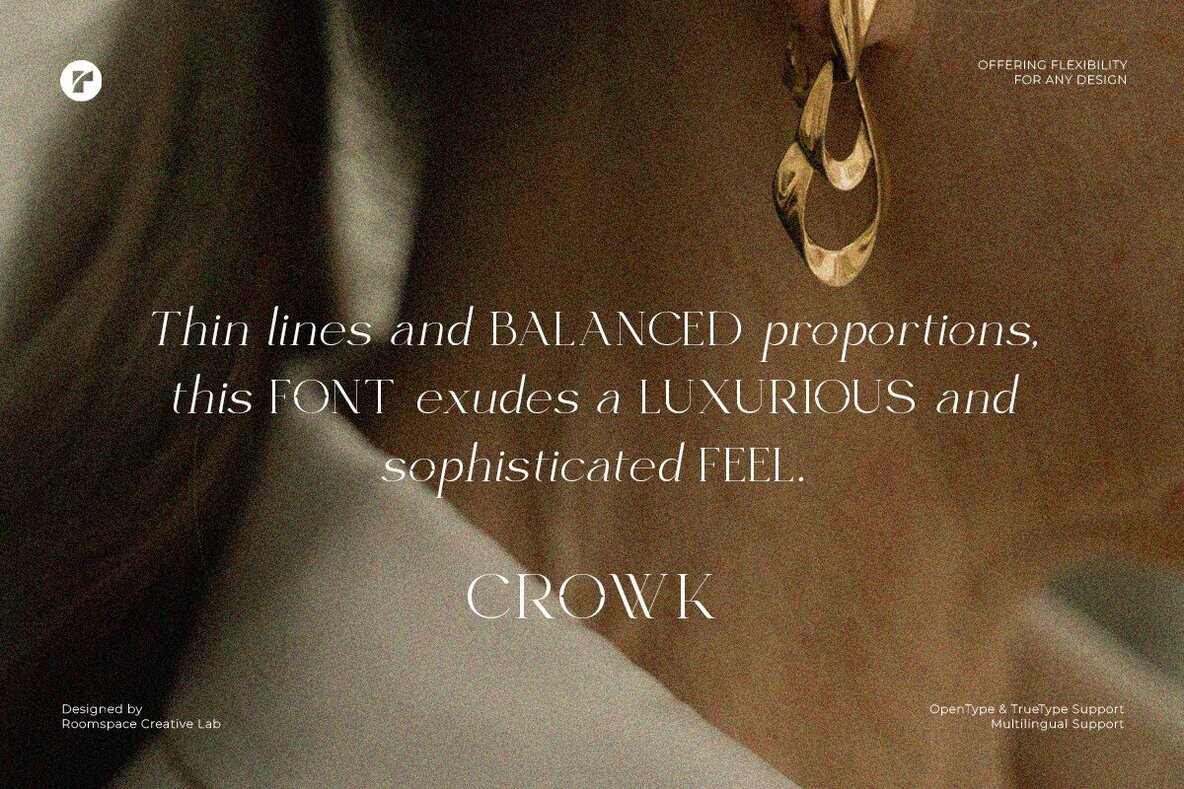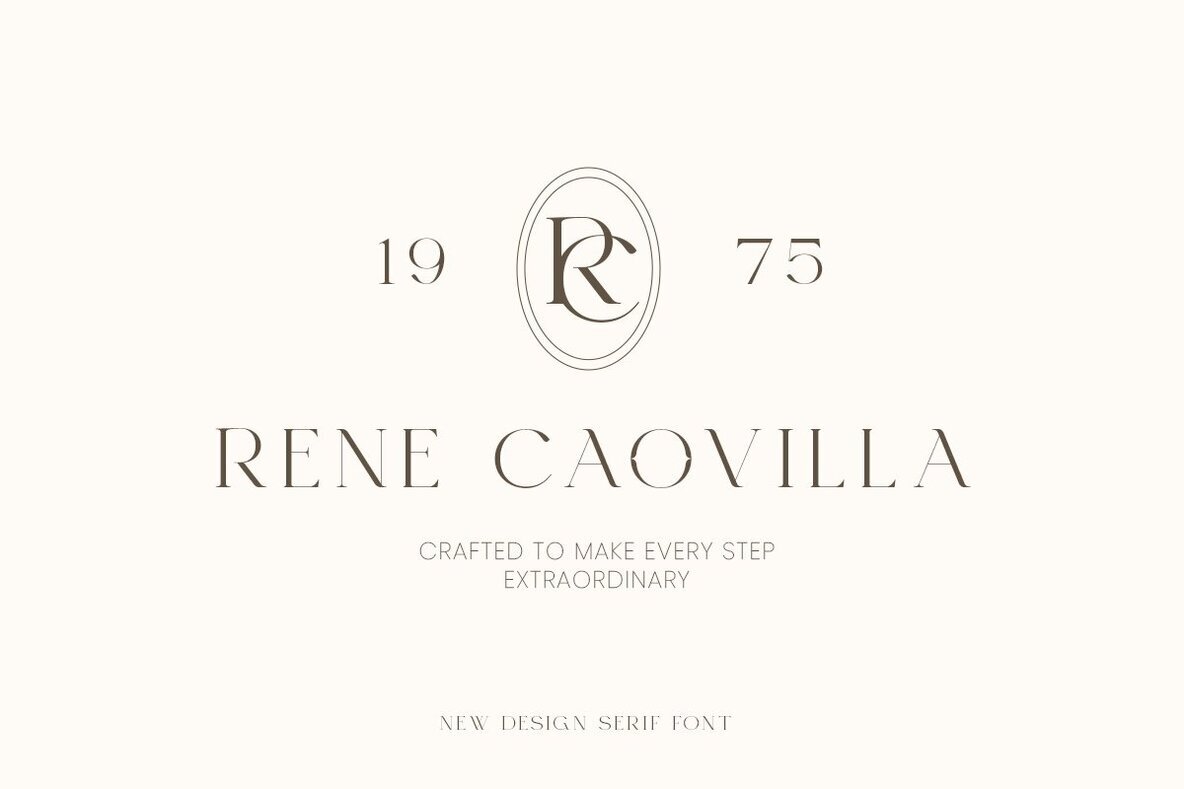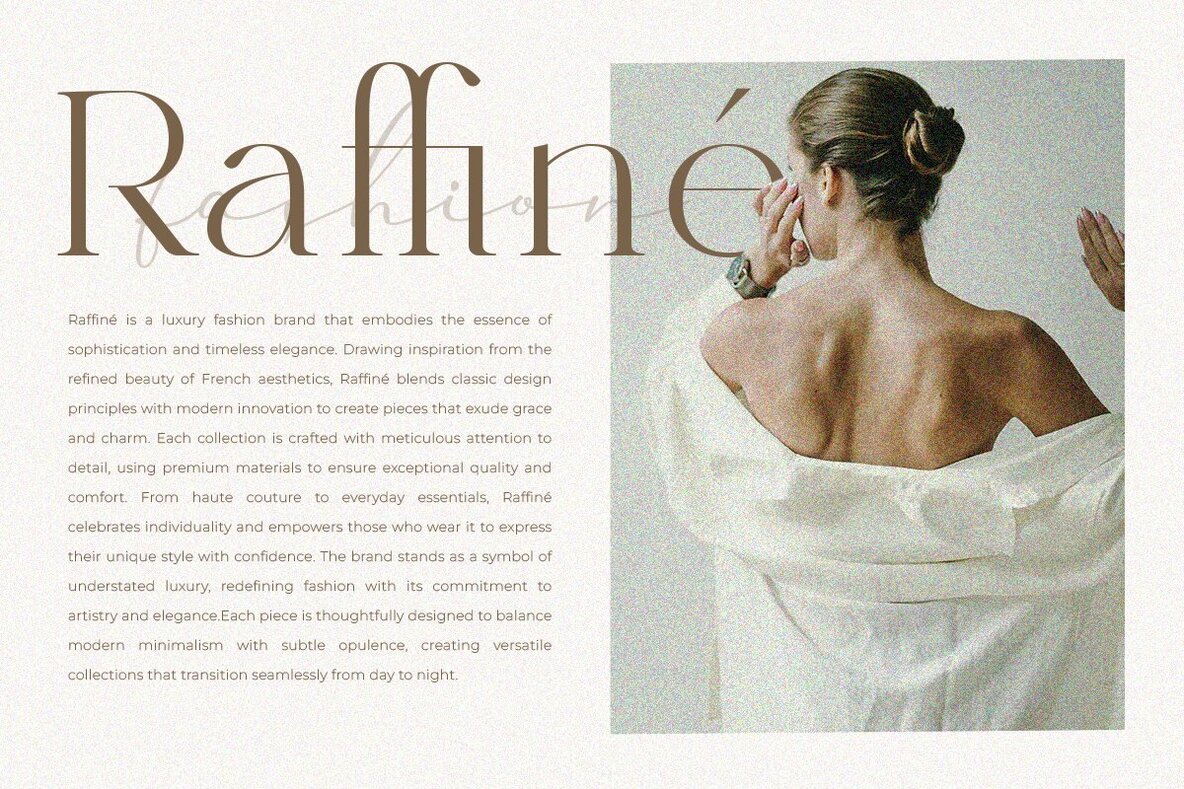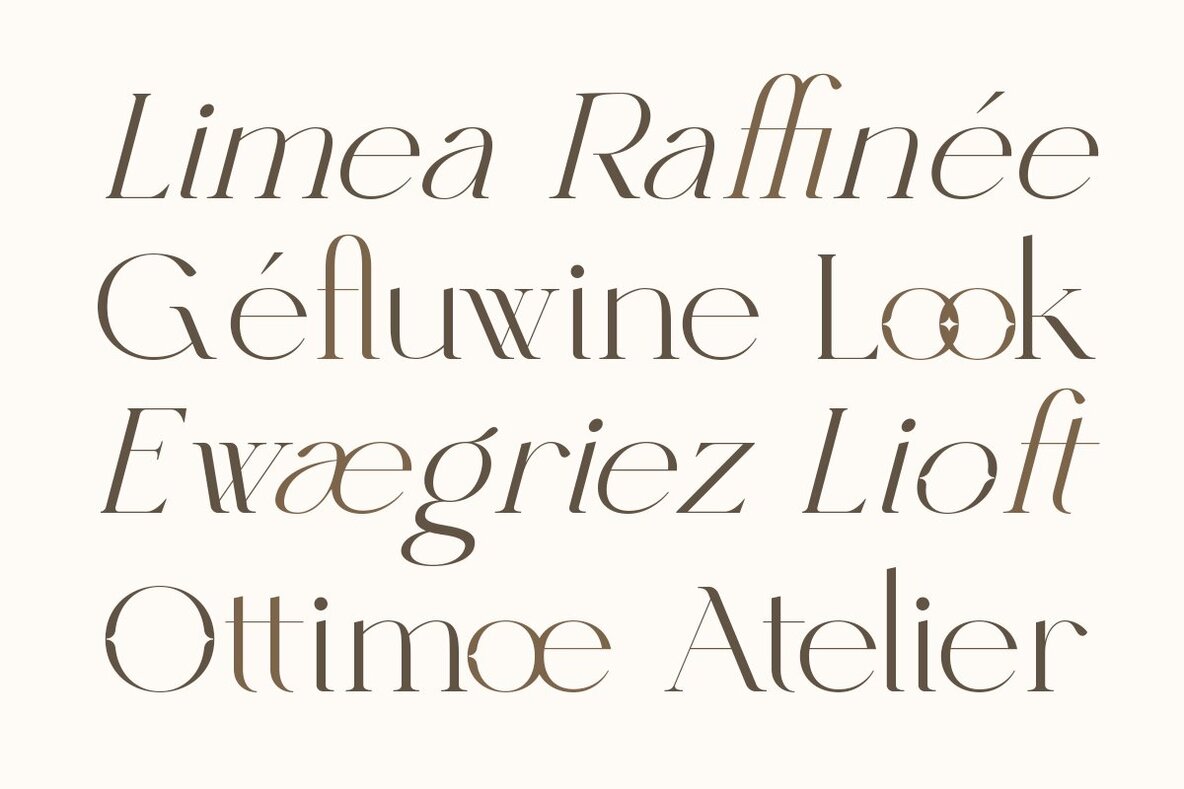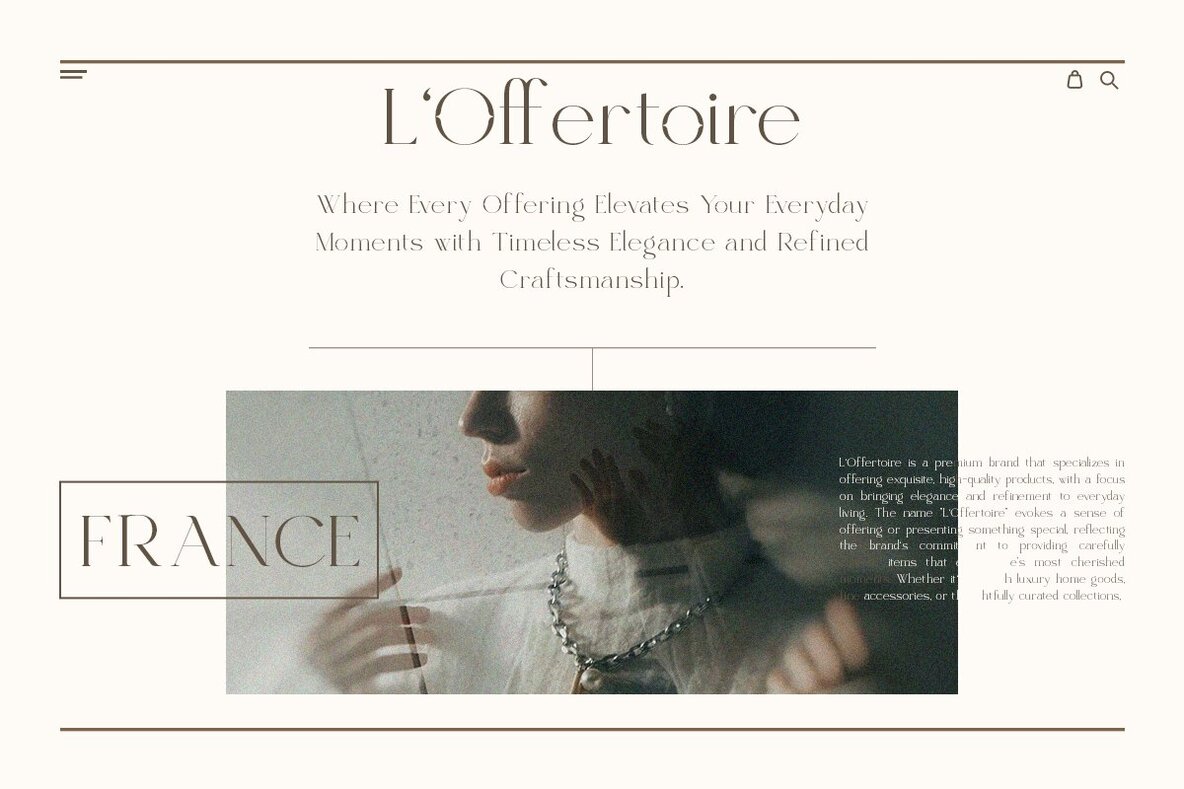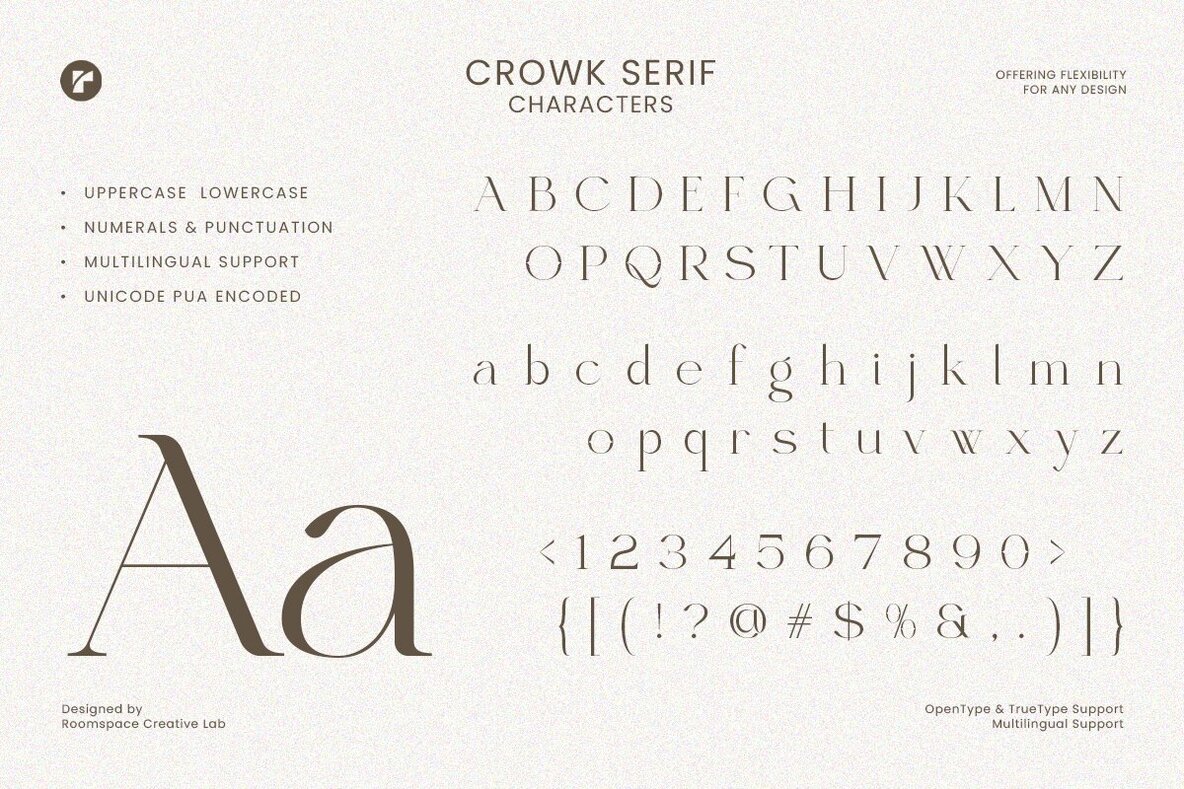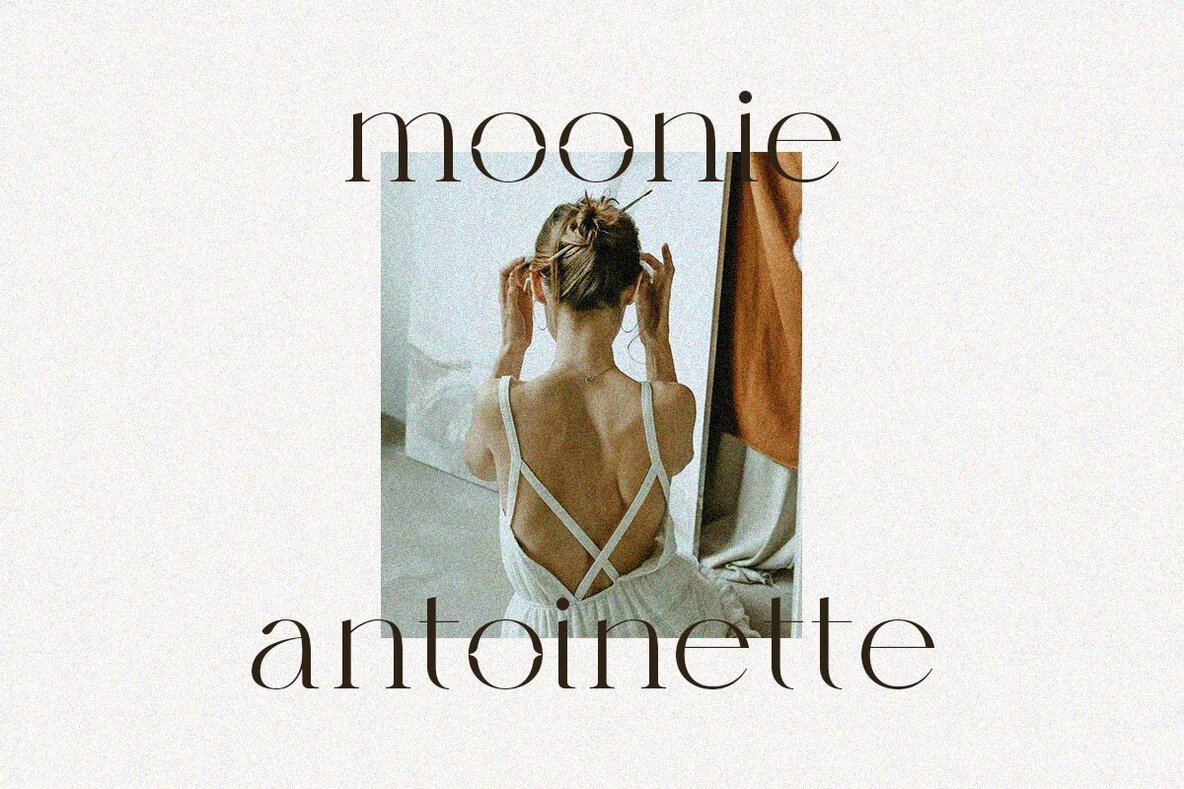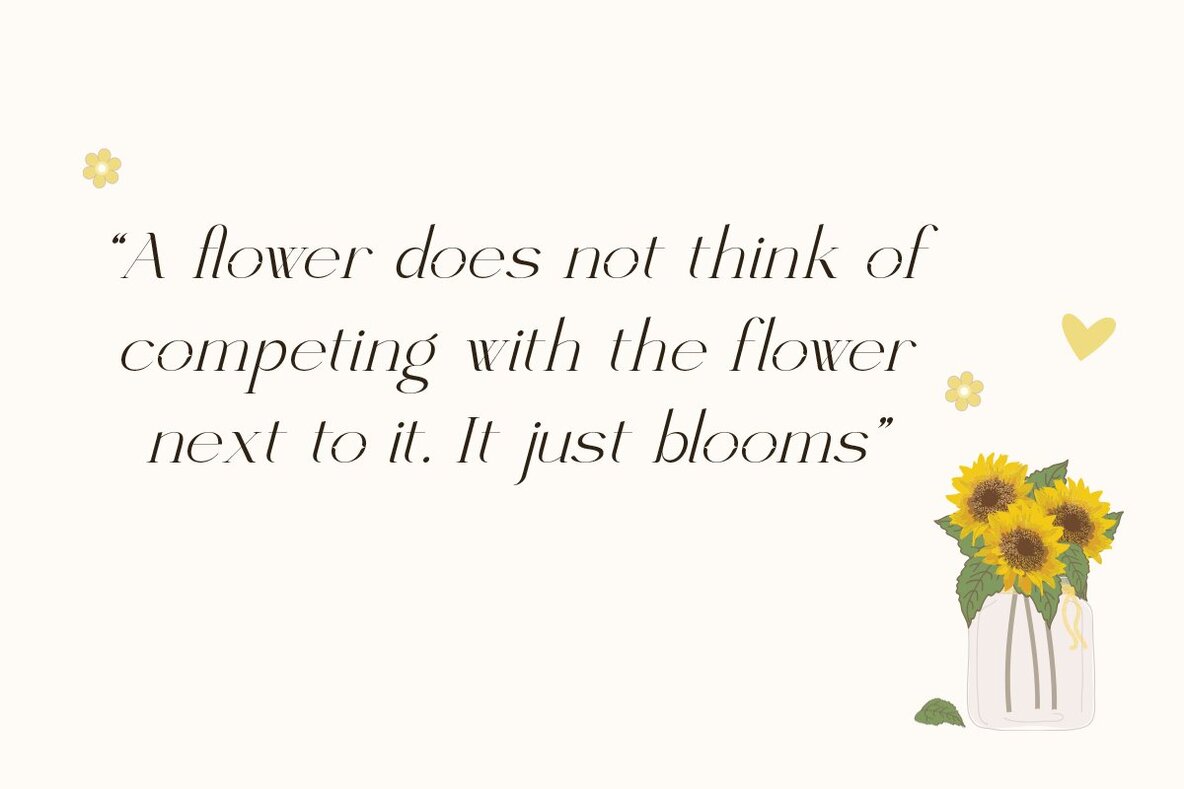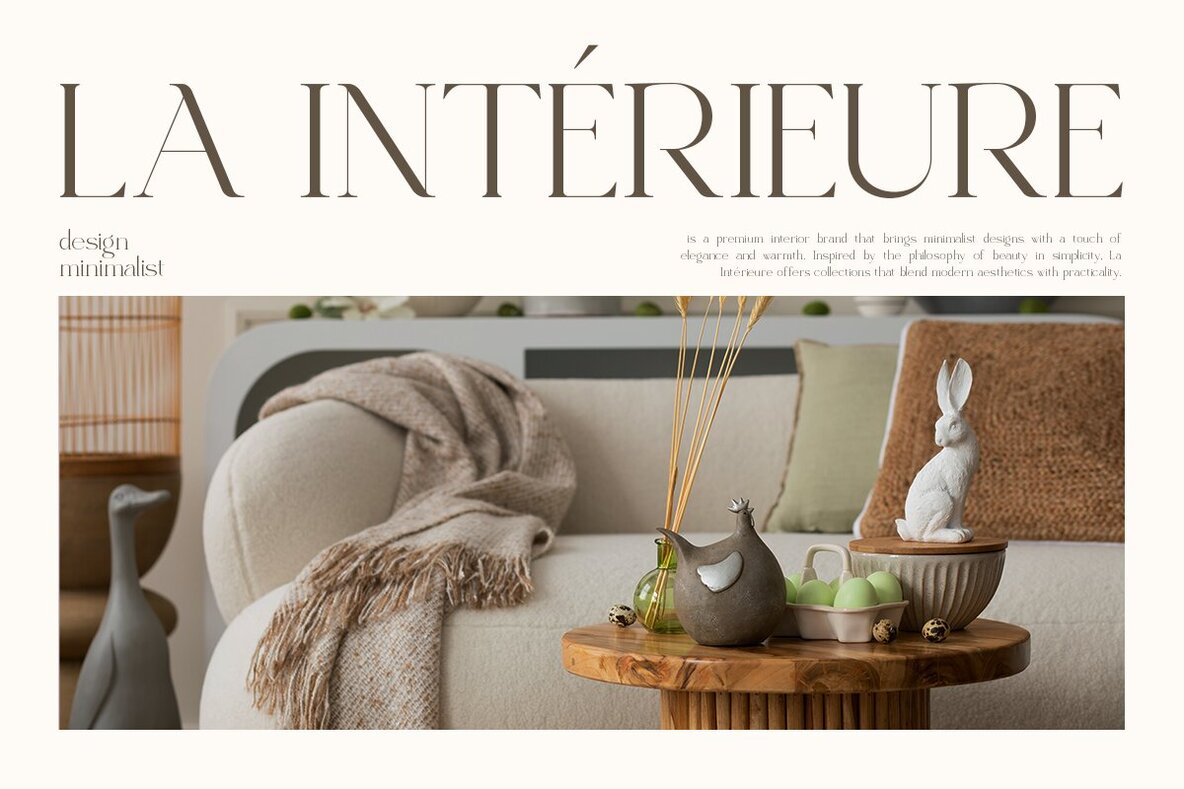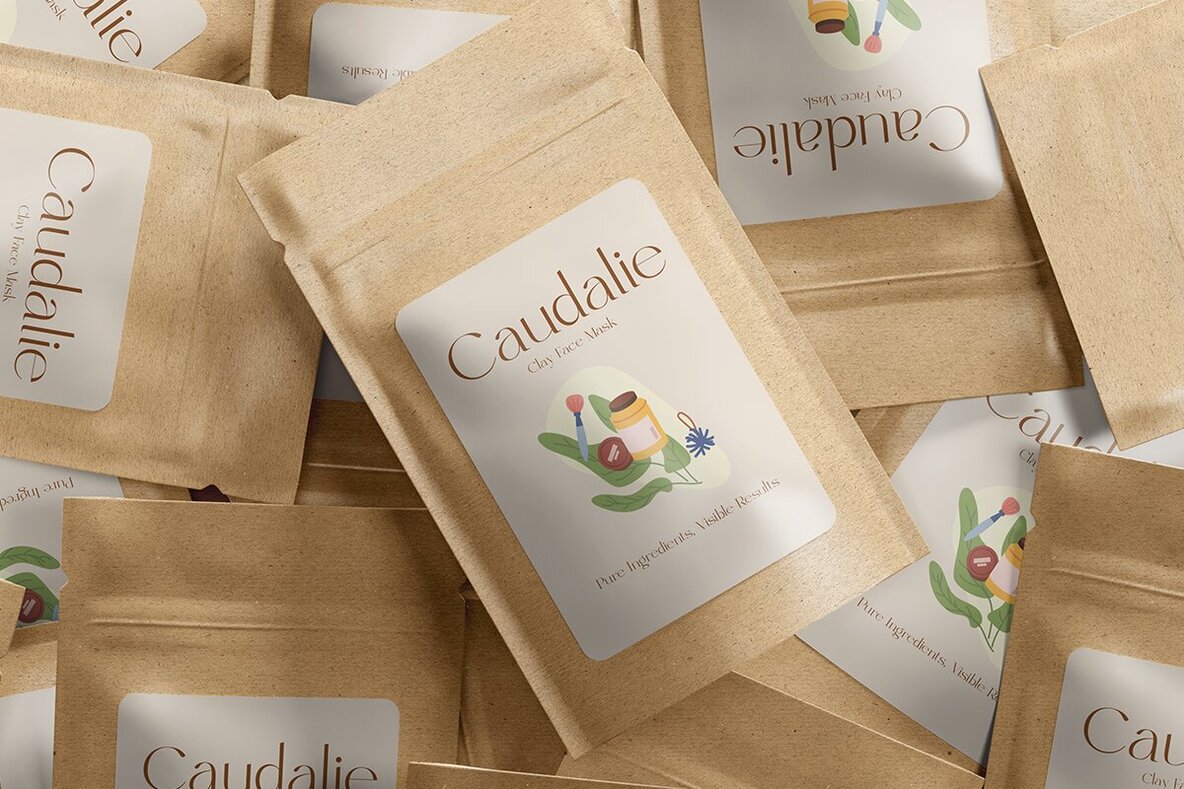
Crowk Font
Crowk is a luxury serif font crafted to infuse sophistication and grace into high-end design projects. It draws inspiration from the timeless allure of classic elegance, seamlessly blending modern aesthetics with a refined charm. Ideal for creating stunning logos, upscale branding materials, and editorial layouts, Crowk is an excellent choice for designers aspiring to create a statement of class and distinction. Born from a passion for sophisticated design, every curve and serif of Crowk has been meticulously crafted to evoke elegance and balance, offering versatility across a wide range of creative projects.
Whether you're working on luxury branding, wedding invitations, fashion editorials, or premium product packaging, Crowk delivers a harmonious blend of style and functionality. This unique serif typeface offers a creative and modern take on classic serif styles, making it perfect for various applications. It enhances your projects with a stylish aesthetic that exudes sophistication and charm.
Crowk provides the versatility and refined design to suit a myriad of creative needs, making it a valuable addition to any designer's toolkit.